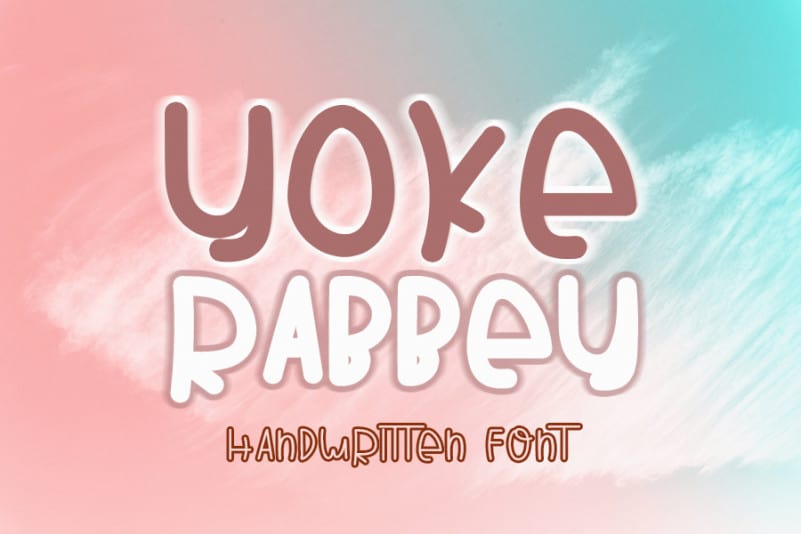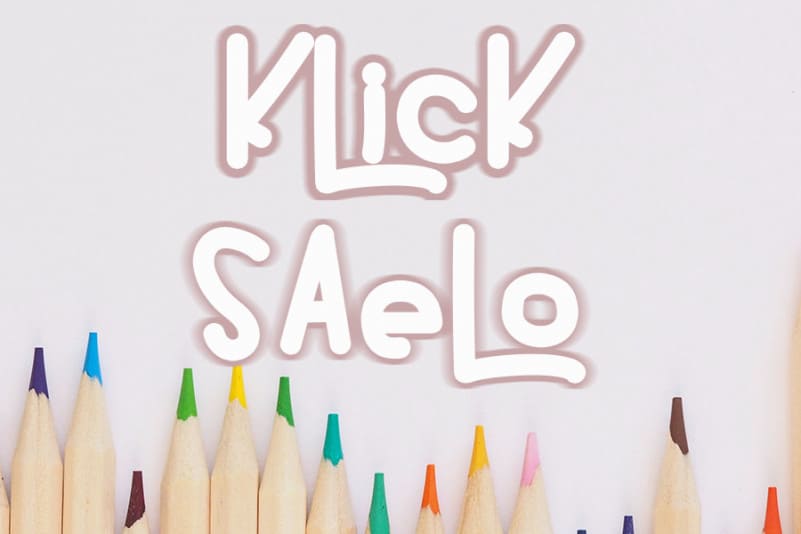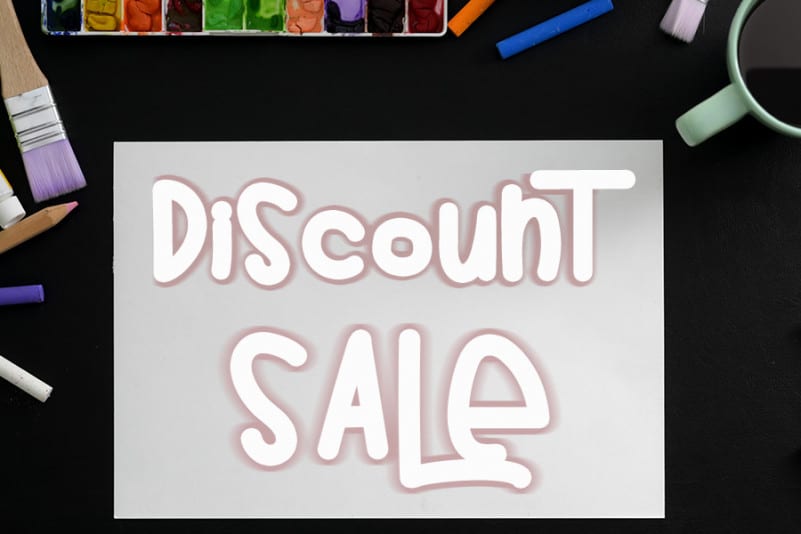
YOKE RABBEY Script Font
YOKE RABBEY Script Font is a great. It maintains its classy calligraphic influences while feeling contemporary and fresh. This versatility will appeal to a wide range of crafty ideas, from letterheads and titles to stationery.